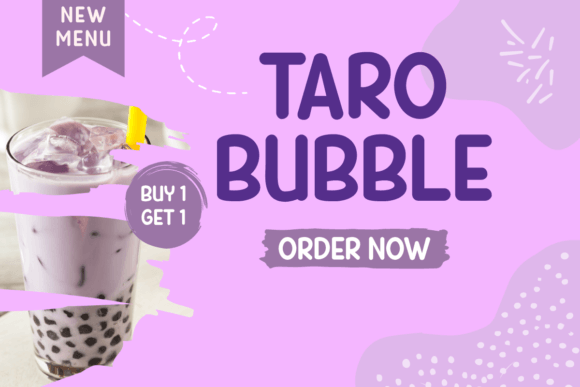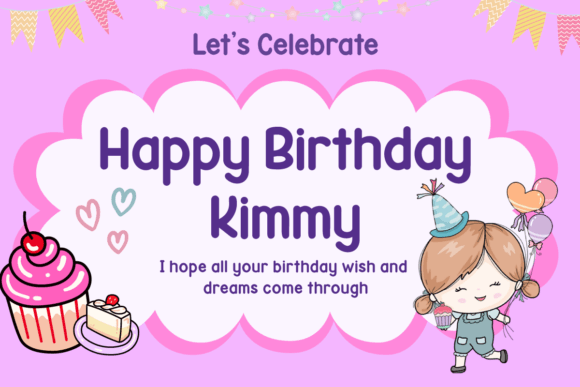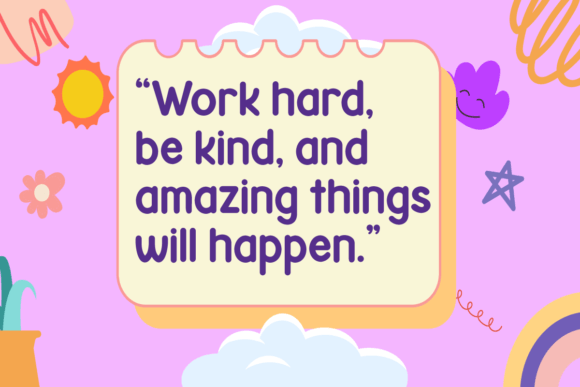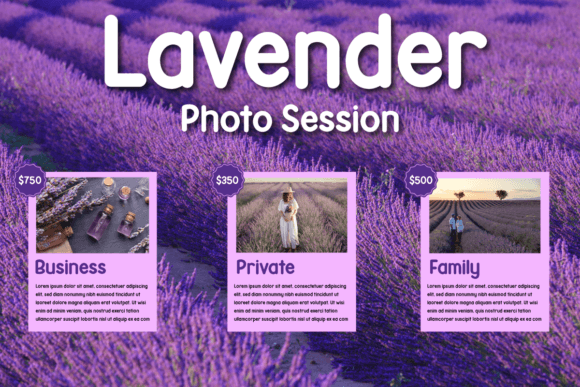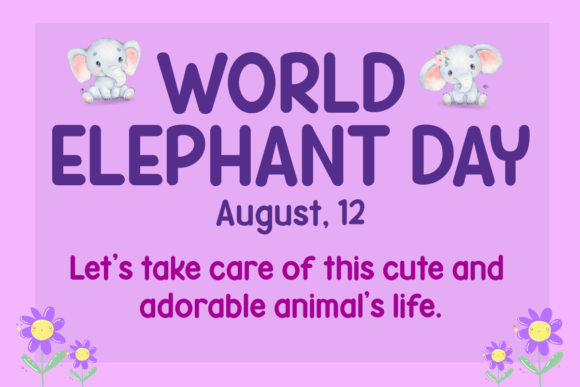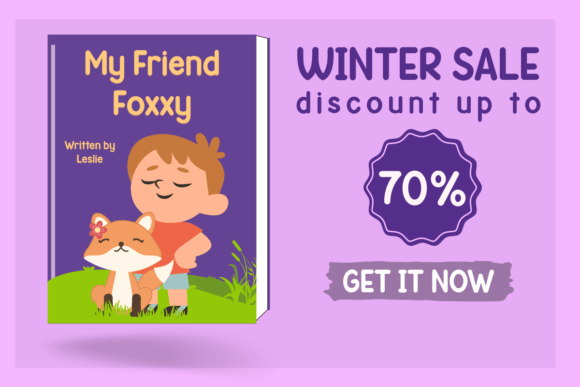
Unleashing Creativity with Kiberul Font
Remember that moment when you stumbled upon the perfect font to match your creative vision? For designers, it’s a feeling like no other – a rush of excitement that sets your imagination soaring. That’s exactly what Kiberul Font is all about – infusing your designs with a playful touch that captivates your audience instantly.
As a valuable design resource, Kiberul Font is a high-quality, free download that’s perfect for creative projects demanding a sense of fun and lightheartedness. With its unique characters and charming style, this delightful typeface is ideal for children’s books, vibrant posters, and playful branding. Whether you’re crafting a cheerful invitation or a captivating logo, Kiberul Font is your ticket to creating designs that stand out.
Embracing the Playful Spirit of Kiberul Font
One of the standout features of Kiberul Font is its transparent background, making it a breeze to work with and customize to your heart’s content. Plus, with PUA Encoded Characters, you can access its full range of characters without needing additional design software. So why wait? Elevate your creative projects and let your imagination run wild with Kiberul Font today!
Key Features of Kiberul Font
- High-quality design resource perfect for creative projects, available for free download.
- Unique, futuristic font with a transparent background, ideal for digital art and graphic design.
- Features a clean and minimalist design, suitable for use in logos, branding, and advertising materials.
Honest Review: Kiberul Font
I recently stumbled upon the Kiberul Font, a free download that’s been making waves in the design community. As a designer, I was excited to dive in and see what it had to offer.
One of the first things I noticed was the high quality of the font. The lines are crisp, the characters are well-defined, and it looks great on a variety of backgrounds. I particularly liked using it on a project with a transparent background – it really popped.
Here are some of the things that work well with the Kiberul Font:
- ✨ High quality design: The font is well-crafted and looks great on a variety of devices.
- ✨ Versatile: It’s suitable for a wide range of creative projects, from logos to brochures.
- ⚠️ Limited font variations: There aren’t as many font weights or styles as I would have liked.
- ⚠️ May not be suitable for complex text: The font can look a bit cluttered when used for large blocks of text.
Overall, I’m impressed with the Kiberul Font. It’s a great addition to any designer’s toolkit, and I’m looking forward to using it on future projects.
How to Use Kiberul Font
The Kiberul Font is a high-quality, free download design resource perfect for creative projects. With its unique and modern style, it’s ideal for adding a touch of sophistication to your designs.
Tips for Getting the Most Out of Kiberul Font
To get the most out of the Kiberul Font, use it on a transparent background to give your designs a clean and modern look. You can also experiment with different font sizes and styles to create a unique and eye-catching design.
The Kiberul Font is commonly used in creative projects such as:
- Logo designs